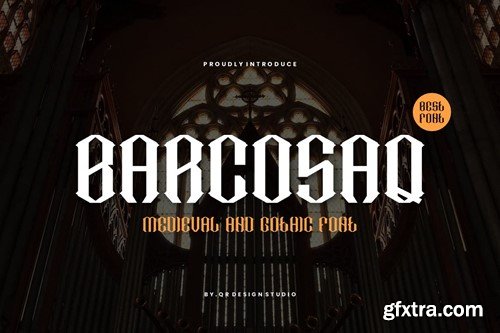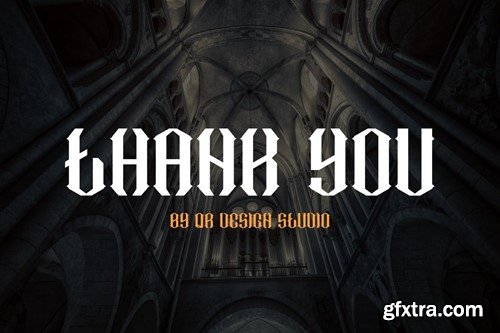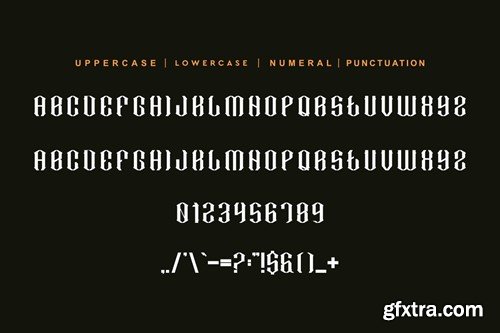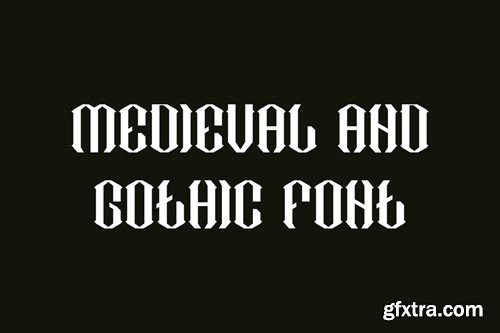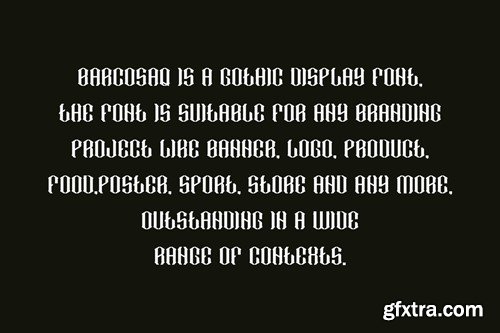
巴罗斯卡 - 中世纪及哥特字体 YSMNXE3
Barcosaq - Medieval & Gothic Font YSMNXE3
Barcosaq - Medieval & Gothic Font
Barcosaq - Sports Font is a blackletter and authentic display font. The font is suitable for any branding project like poster, logo, sport, and many more. Outstanding in a wide range of contexts.